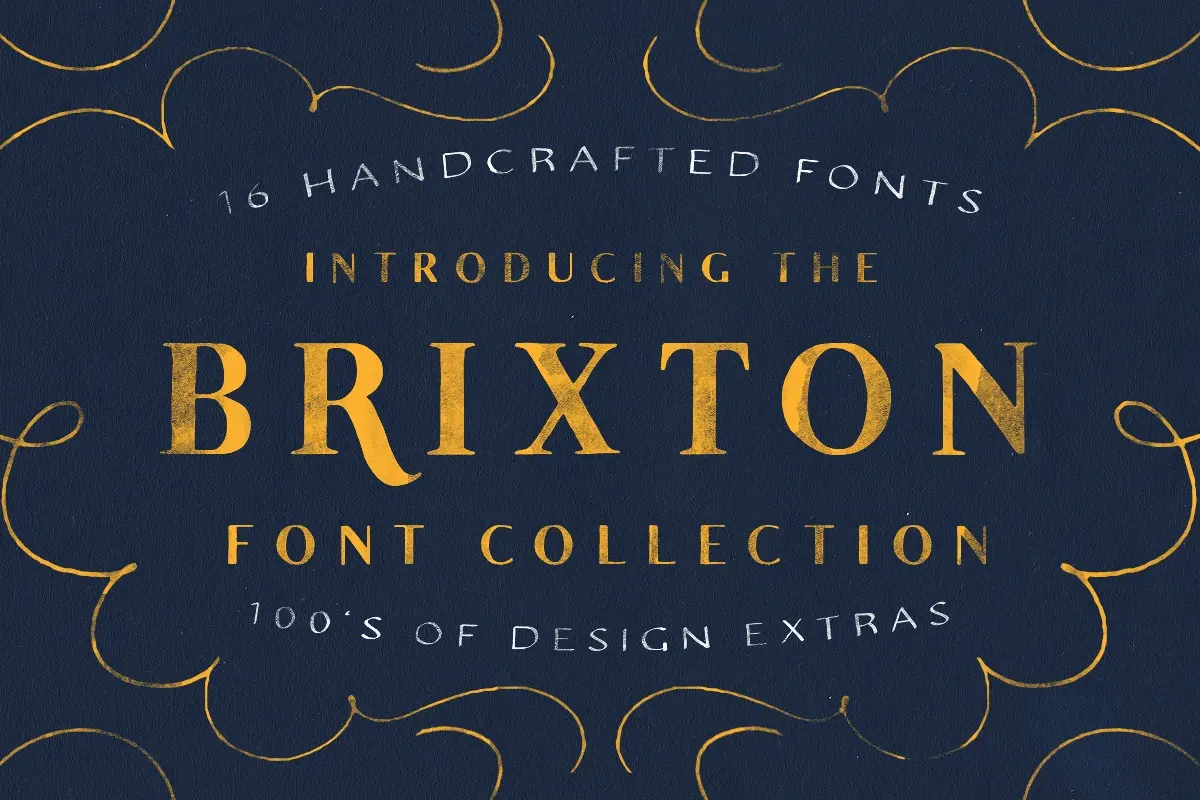
The Brixton Collection (16 Fonts) Free Download is a comprehensive bundle of 16 beautifully crafted fonts designed to suit a variety of creative projects. This collection includes a mix of bold and elegant serif, sans-serif, and script fonts, offering versatility for logos, branding, websites, posters, and more. Whether you're working on a modern brand, a vintage-inspired project, or a stylish event, The Brixton Collection (16 Fonts) Free Download provides the perfect tools for any design. With its wide range of typefaces, this collection allows for creative experimentation and flexibility. Test the fonts in personal projects before purchasing a commercial license and elevate your designs with this diverse and dynamic font collection.